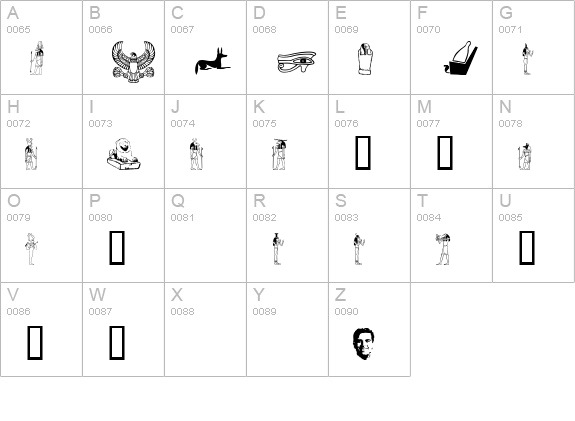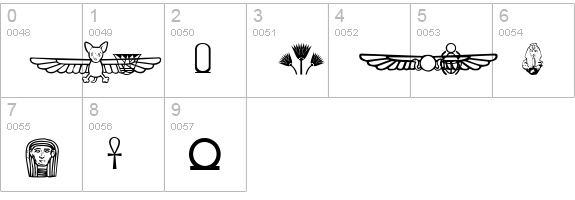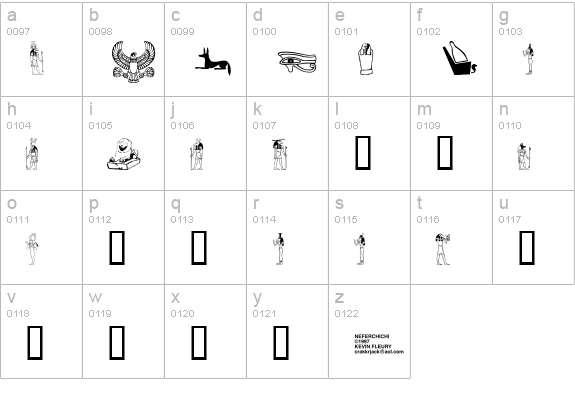
Neferchichi Font Details
Neferchichi font is a stunning display typeface that exudes elegance and sophistication. Its intricate letterforms are inspired by ancient Egyptian hieroglyphics, giving it a unique and eye-catching appeal. The font features clean lines and sharp angles, making it ideal for headlines, logos, and branding projects. What sets Neferchichi font apart is that it is available for free download at FontsMarket.com. This means that designers and creatives can easily access this beautiful typeface and use it in their projects without any cost. Whether you're working on a personal project or a client's design, Neferchichi font is a versatile choice that will add a touch of luxury and style. Download it today and elevate your designs with this exquisite typeface.